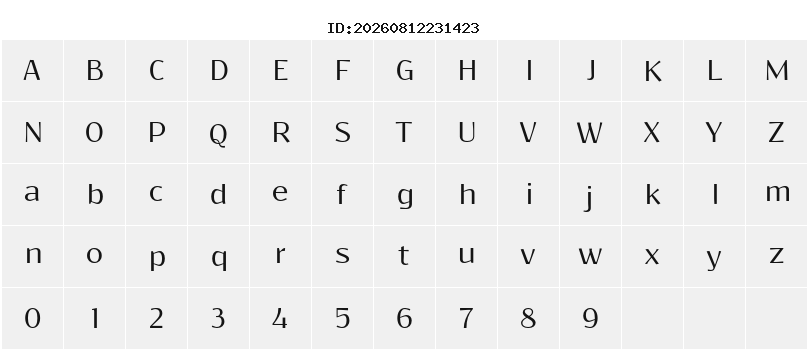
Resagokr Preview
• Font Name: Resagokr
• Full Font Name: Resagokr
• Designer: gluk
• Manufacturer: gluk
About Resagokr.otf
Resagokr.otf is a modern, elegant sans-serif font designed for ultimate readability and visual harmony. Perfect for branding, headlines, web design, and print materials.